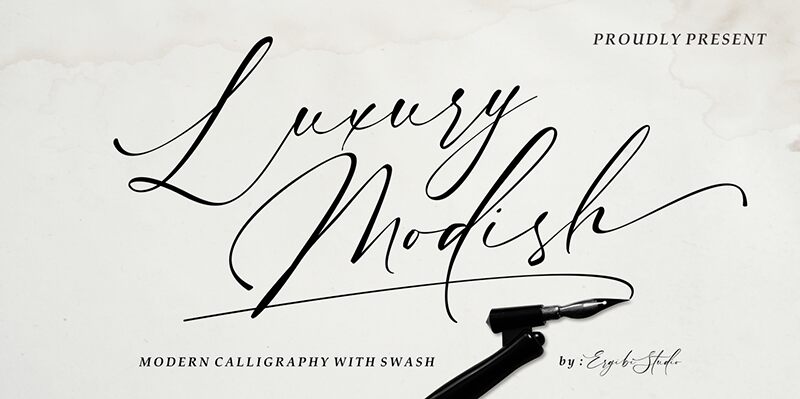
Luxury Modish is a modern calligraphy font designed by Riyadh Rahman. Its light weight and elegant curves make it the perfect choice for projects that require sophistication and refinement. Whether you're designing wedding invitations, creating branding materials for a high-end fashion brand, or crafting a beautiful logo for a luxury hotel or spa, Luxury Modish is the ideal font for the job. Its delicate strokes and graceful flourishes will add an air of elegance to any project, making it stand out from the crowd. Choose Luxury Modish for your next design project and elevate it to new heights of style and sophistication.